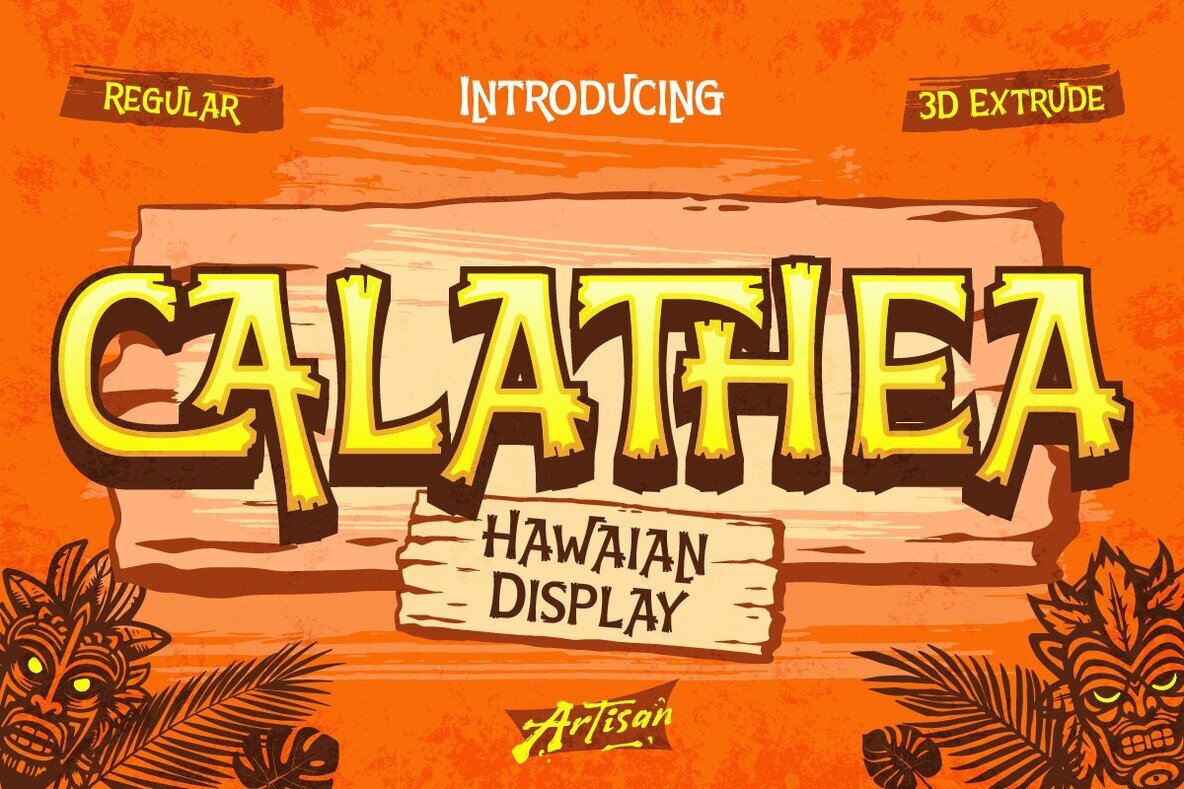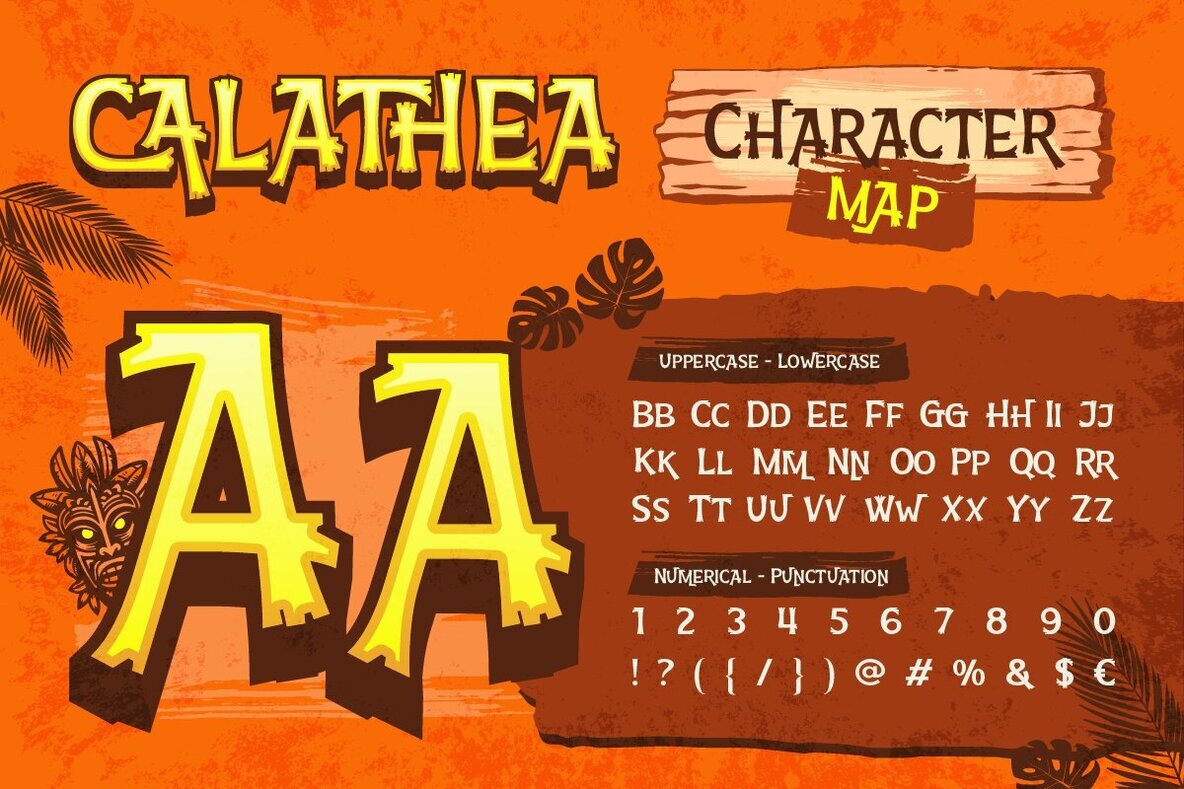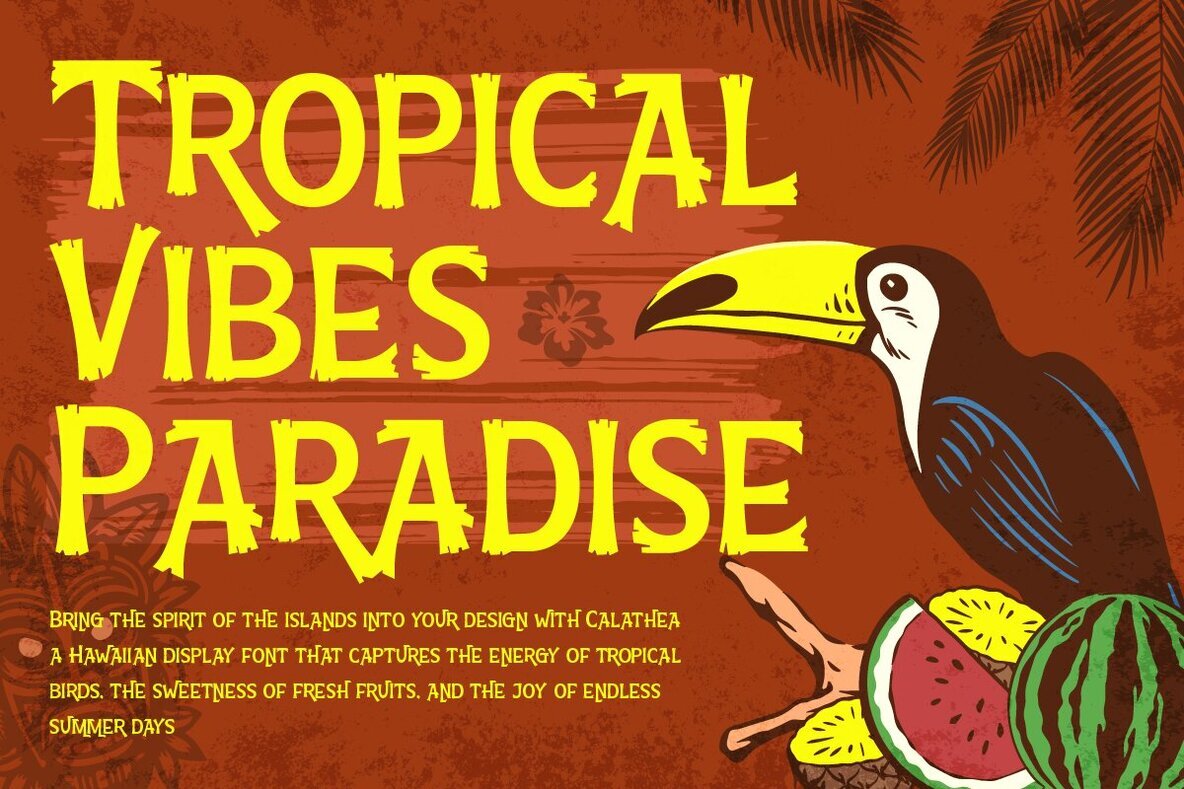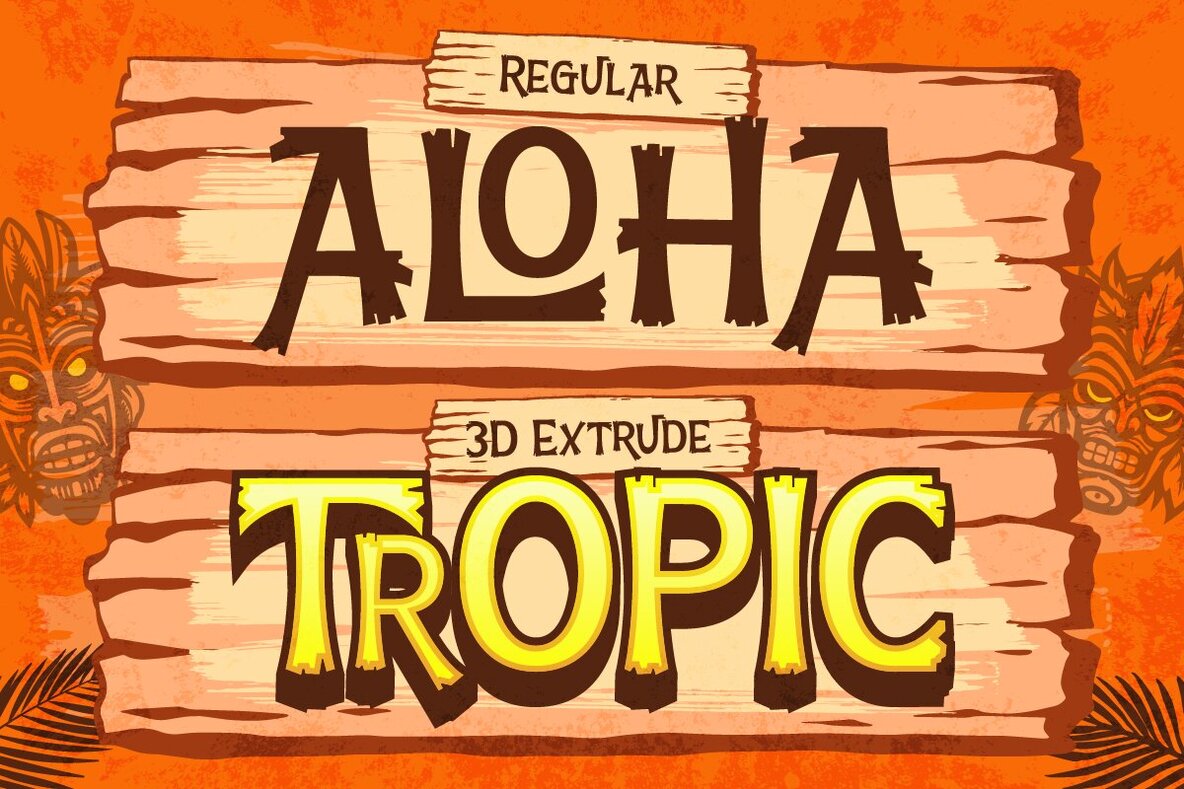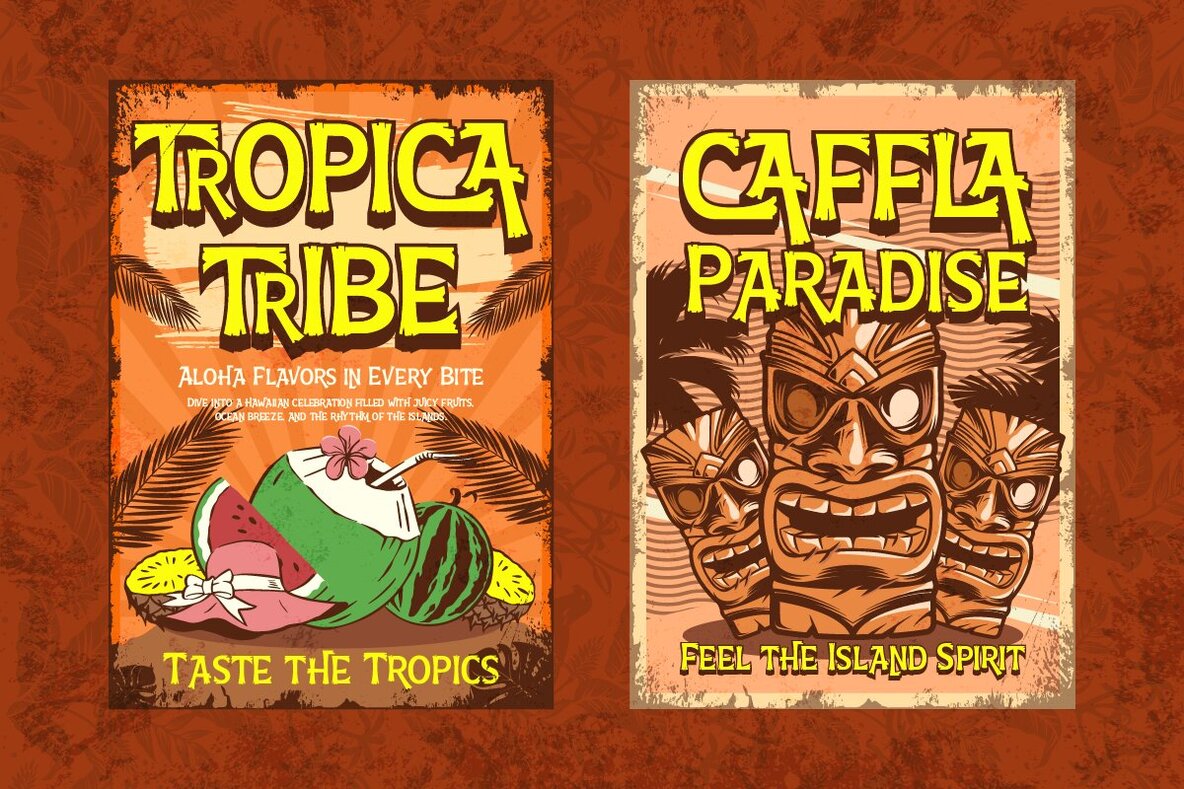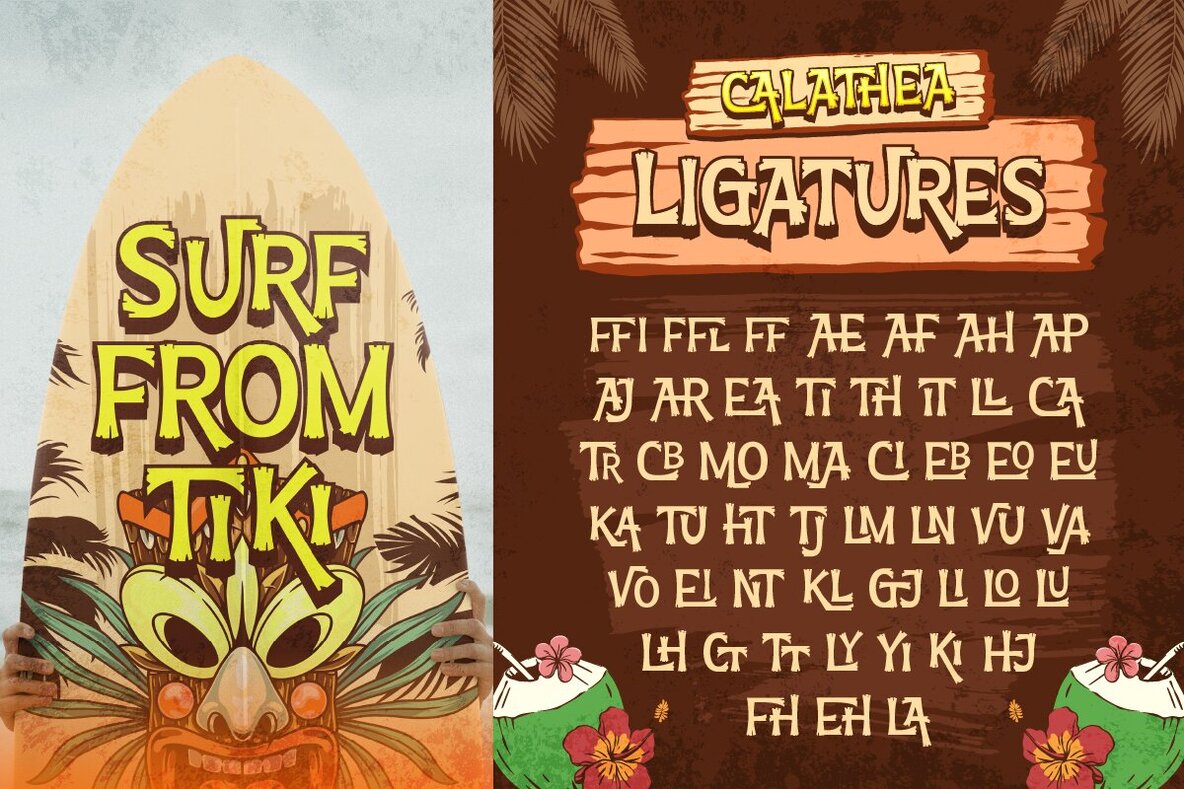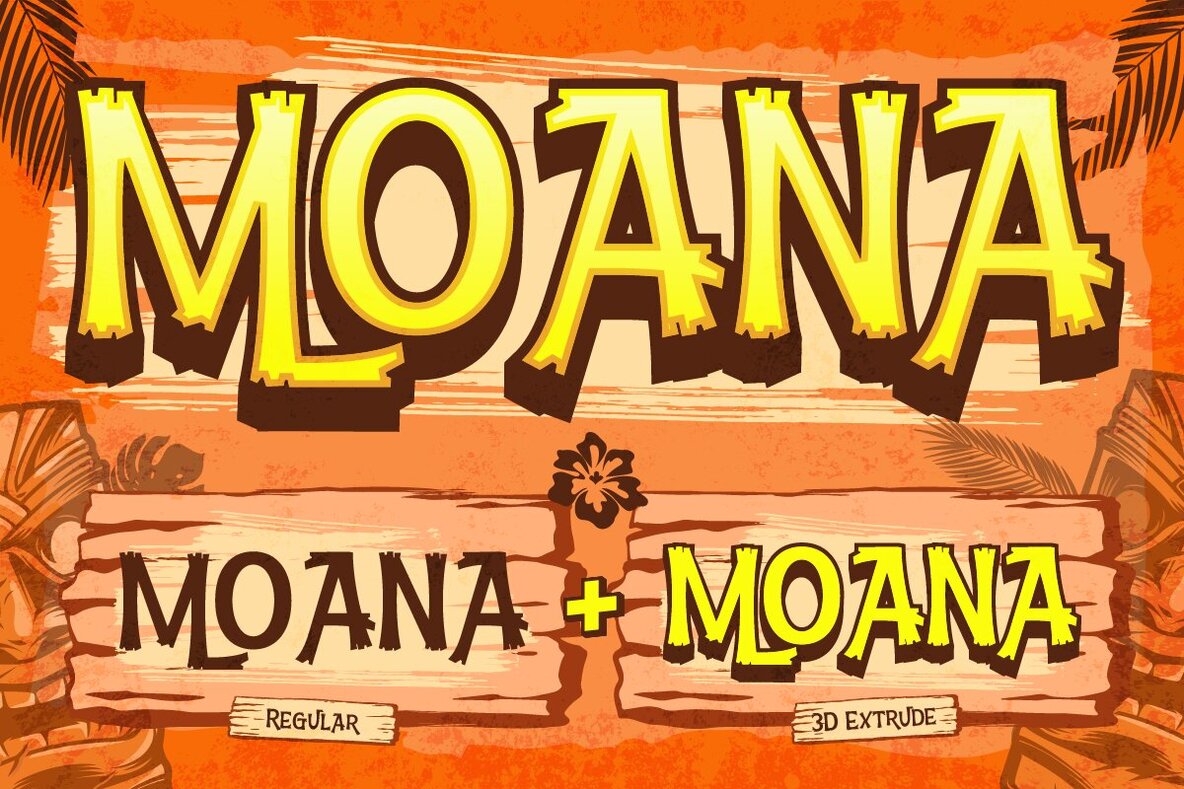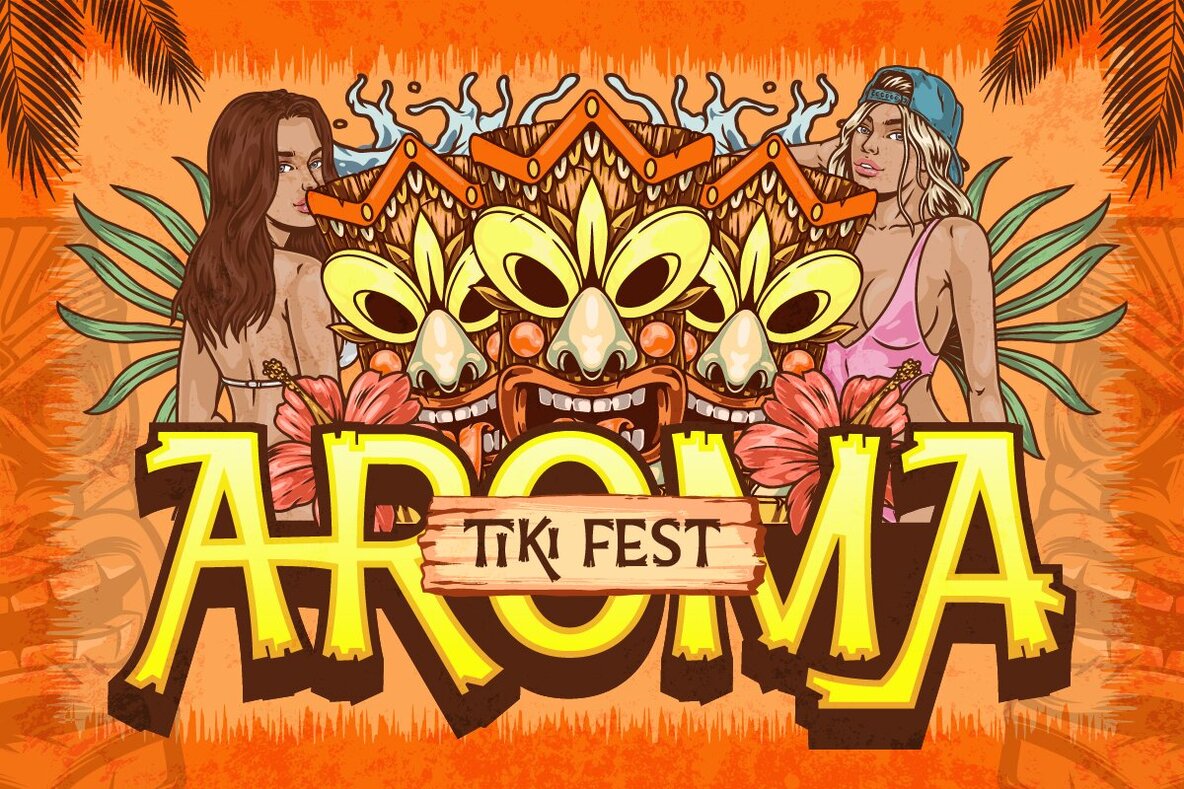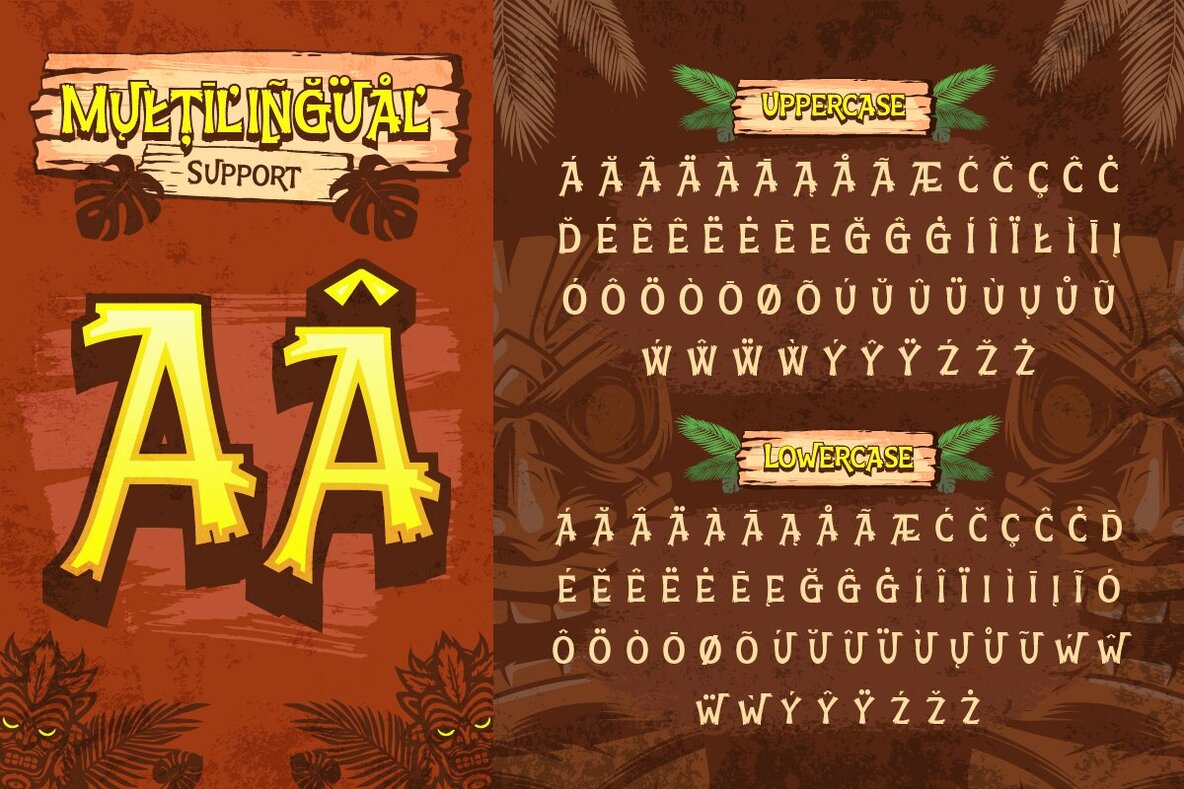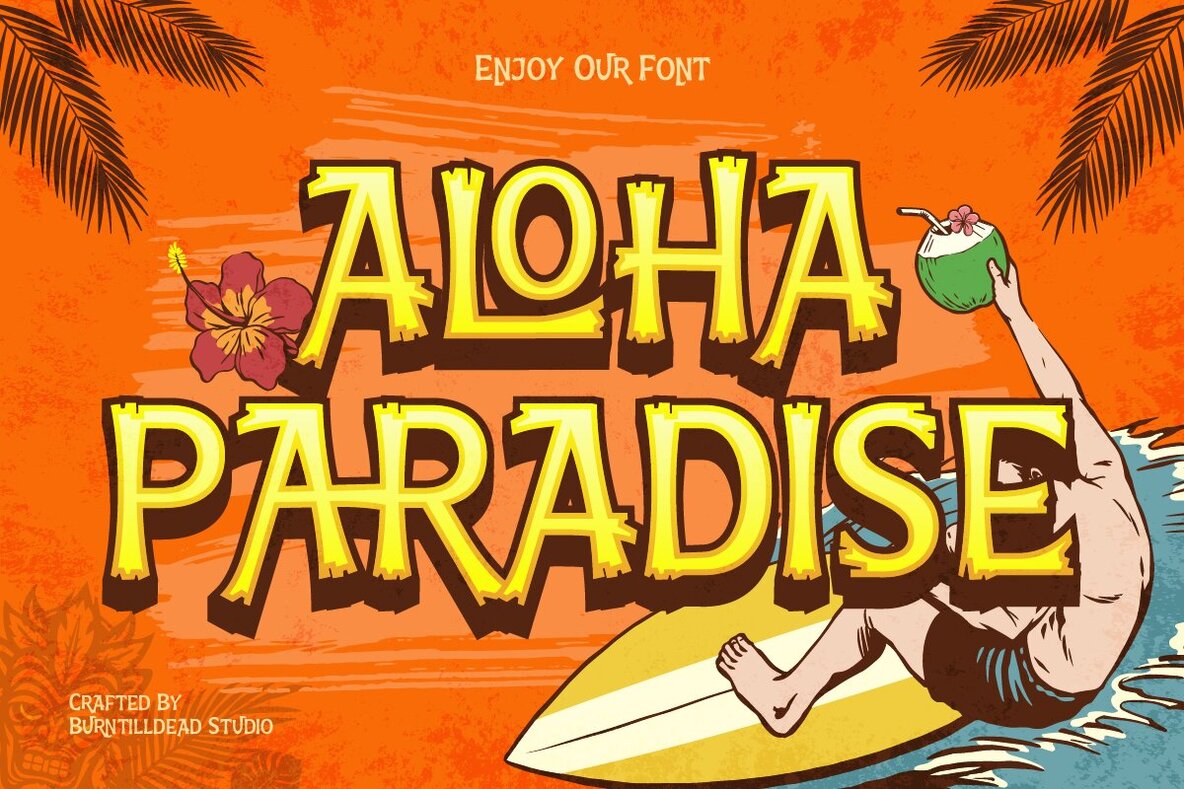
Calathea Font
Calathea Regular
Calathea 3D Extrude
Add a burst of island energy to your work with Calathea, a bold Hawaiian display font inspired by tiki culture and beach life. With its lively character, Calathea is designed to inject warmth and playful vibes into any creative project. The font comes in both Regular and 3D Extrude styles, allowing for creative versatility and adding visual depth where needed. Calathea stands out in designs seeking a sunny, relaxed character. Every letter evokes a carefree atmosphere, perfect for capturing that vacation spirit in your visuals.Calathea: Hawaiian Display Font for Tropical Designs